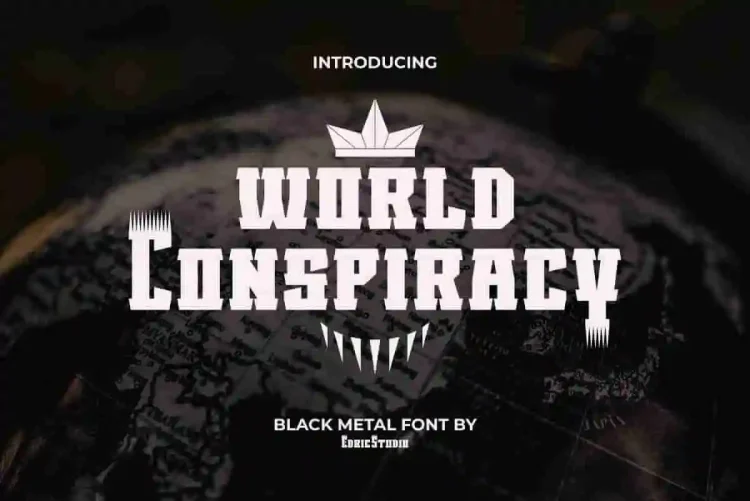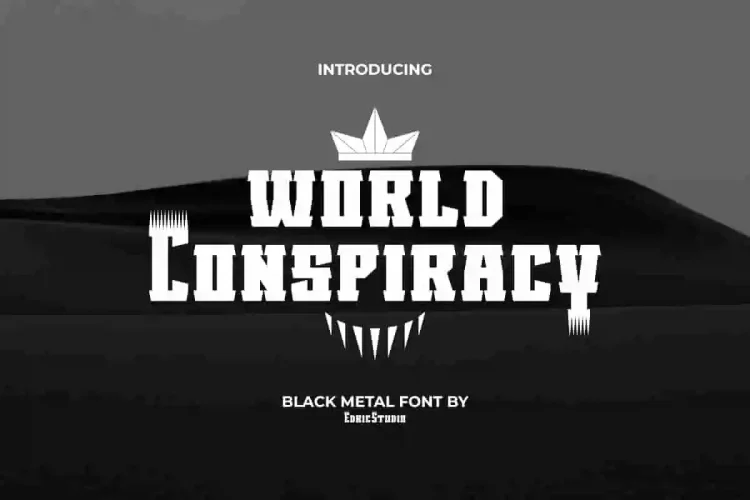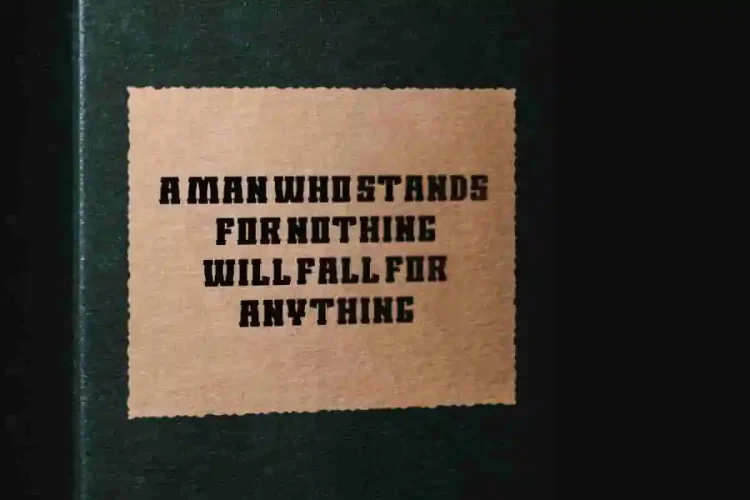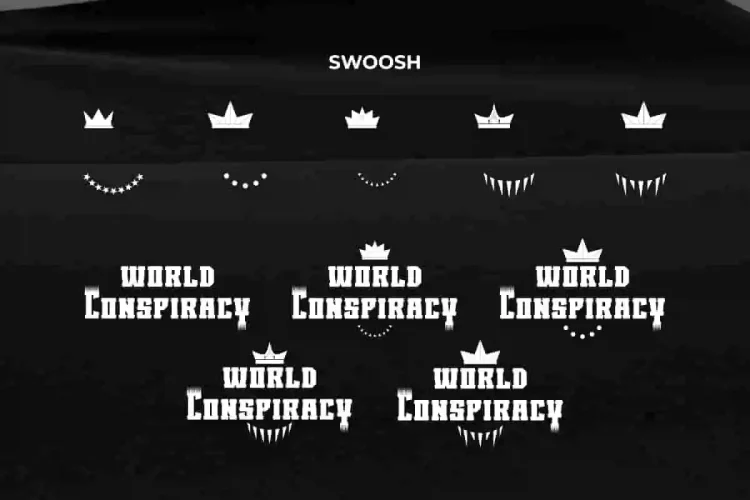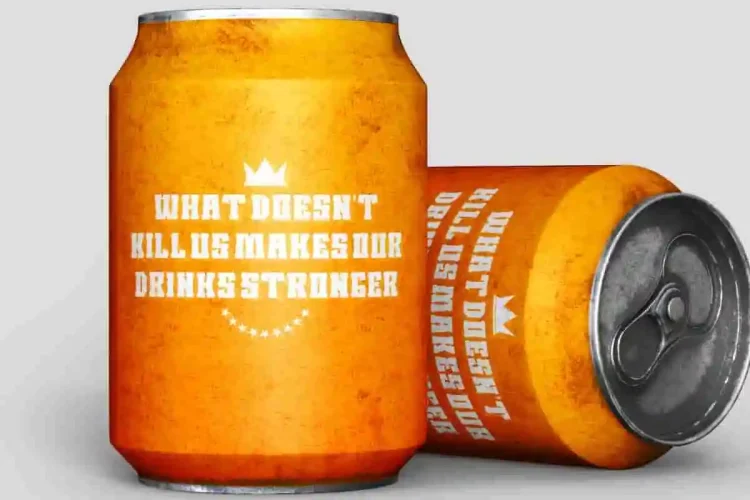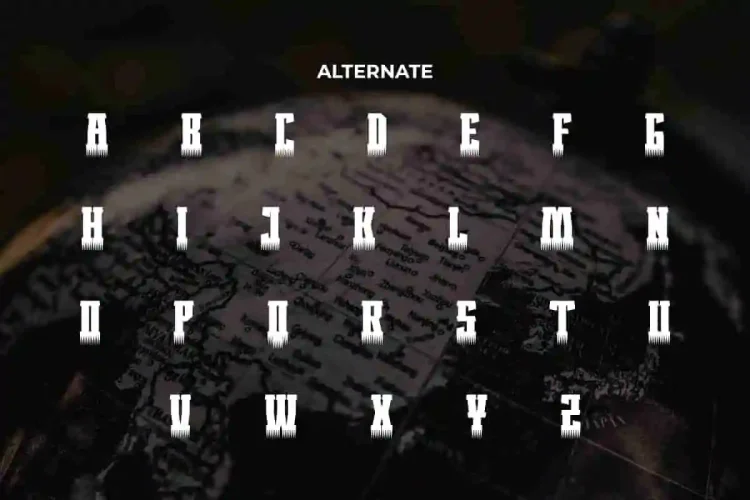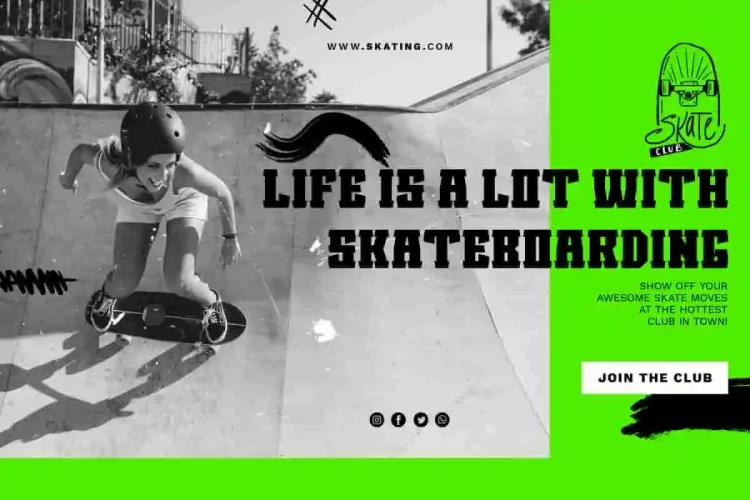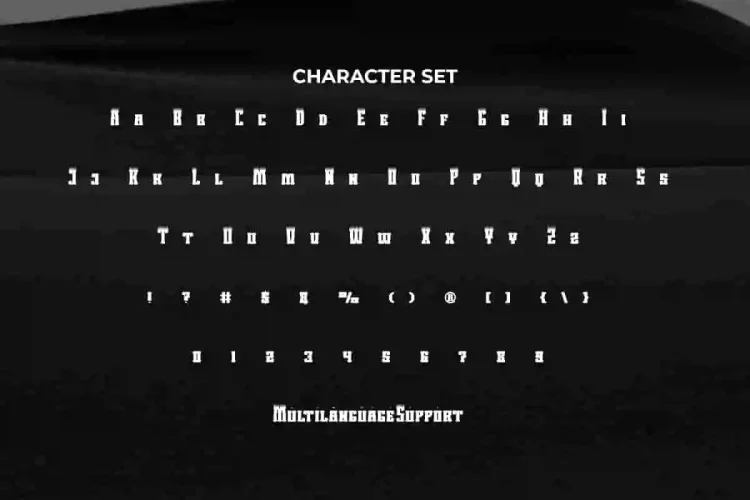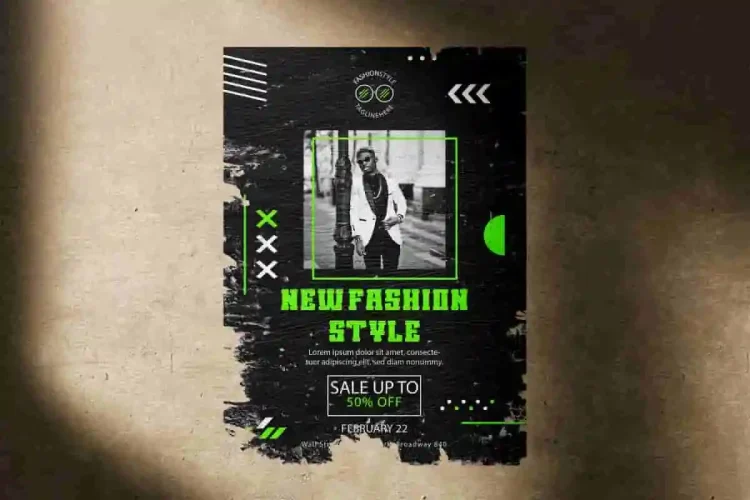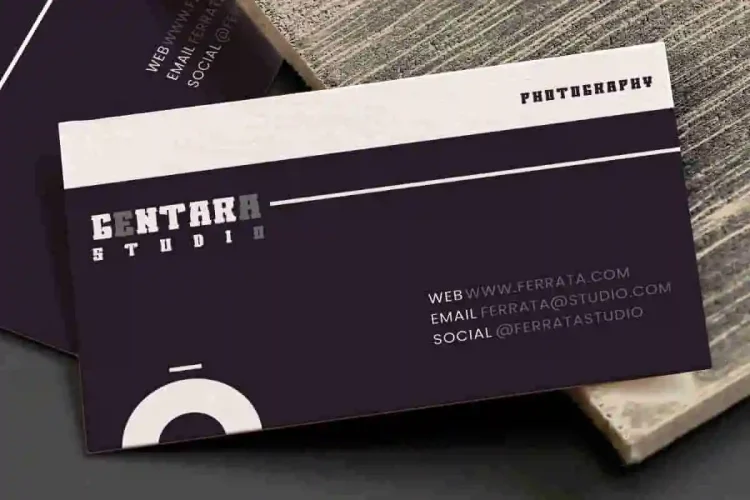
World Conspiracy Font is a unique classic blackletter font with metal look. How could it not be, this is really different from the usual. With serif display letter characters in creative nuances and other additions that are no less cool, it produces an impressive letter shape. A dark mid-century feel can be suitable for banners, blogs, brochure, business card, flyer, headers, mockup, packaging, poster, quotes, title, website, and much more.
World Conspiracy Font includes a complete set of ALL CAPS for both Uppercase and Lowercase letters of different sizes, Numbers, Punctuation, Symbols, Alternates and Swoosh. It gives you an eye-popping Black metal font, so open to experimenting with this! Perfect for advertising, fashion, film, game sports, graphic design, movie, photography, printing, publisher, etc.